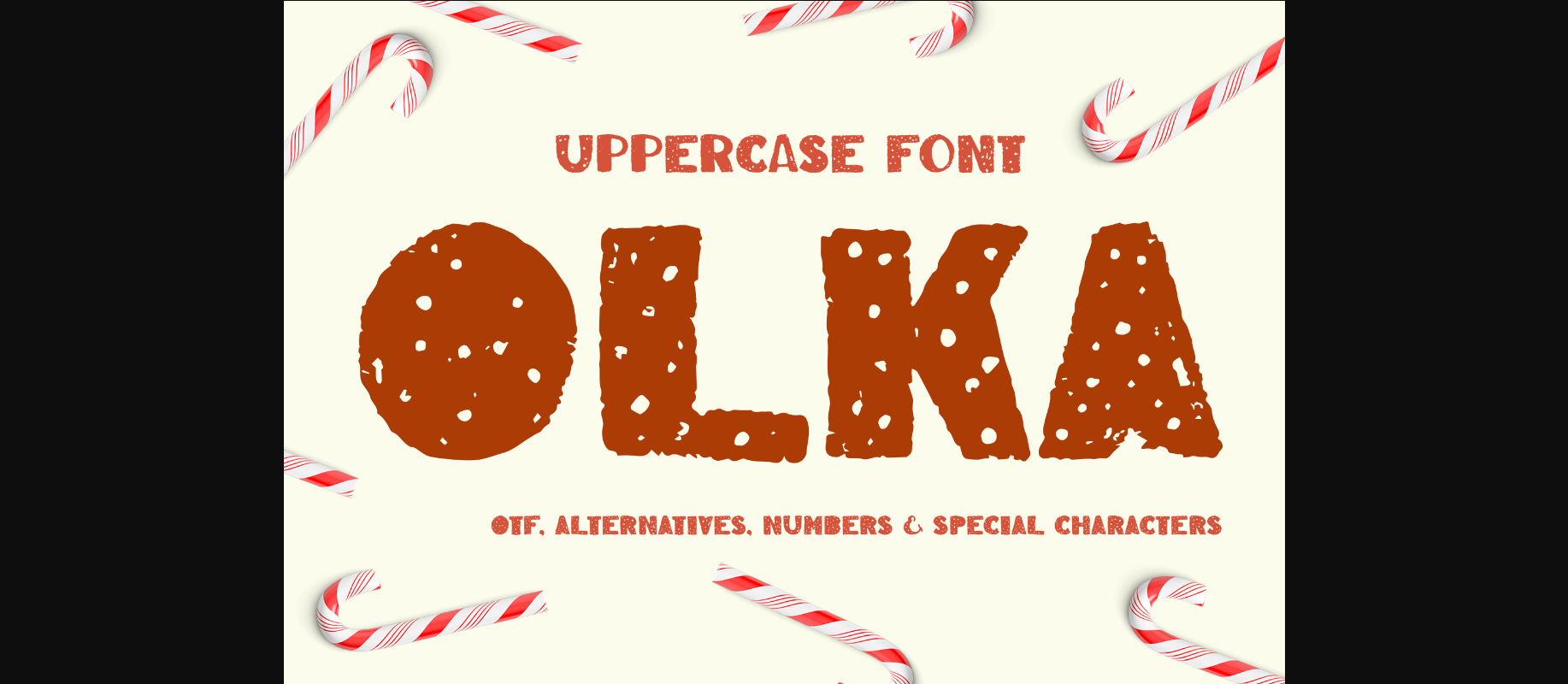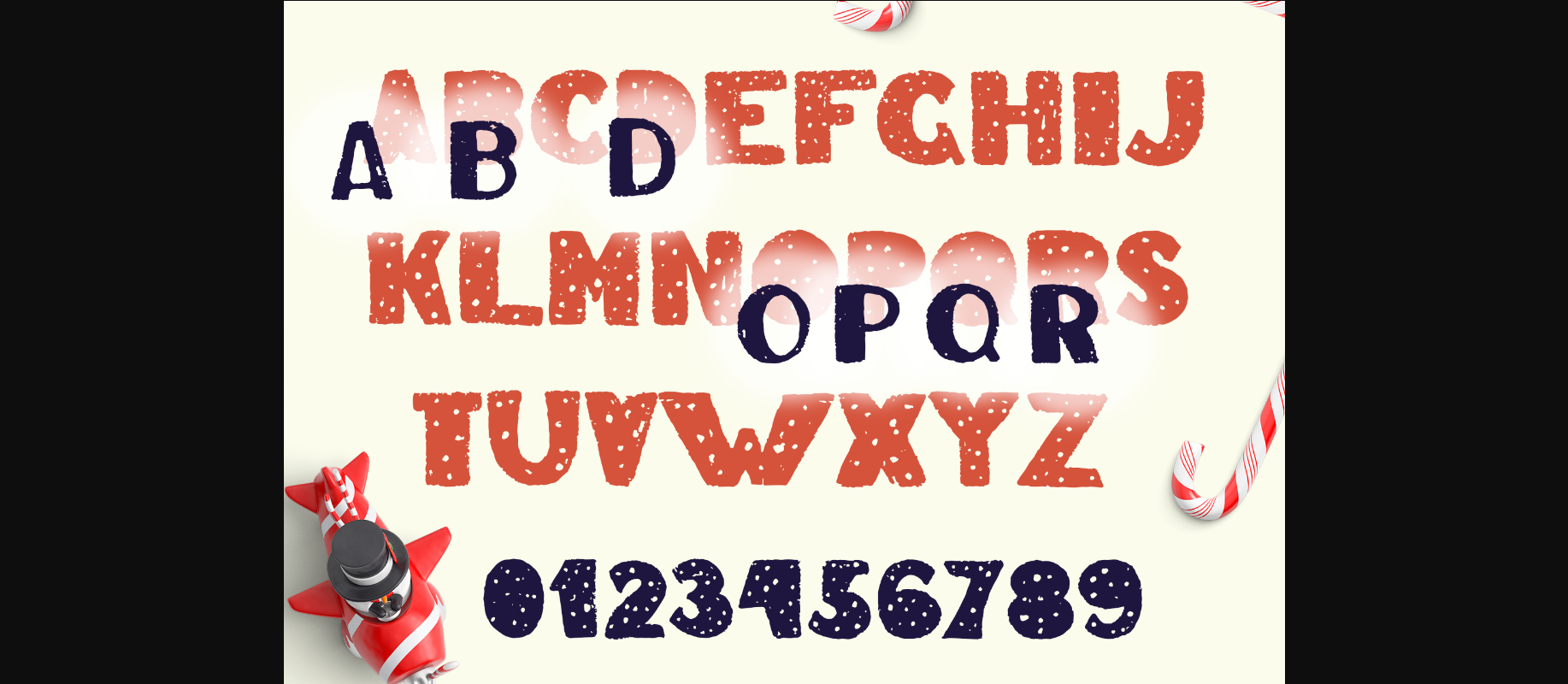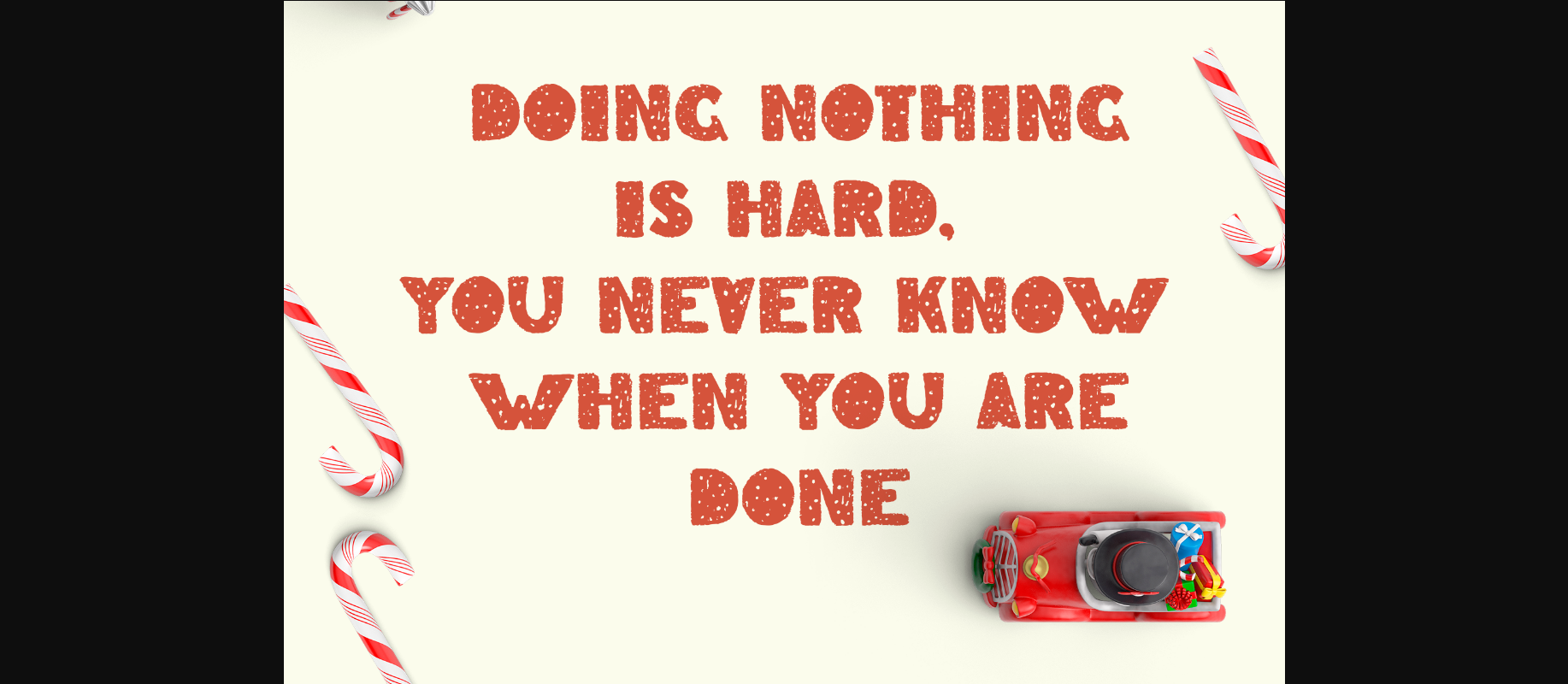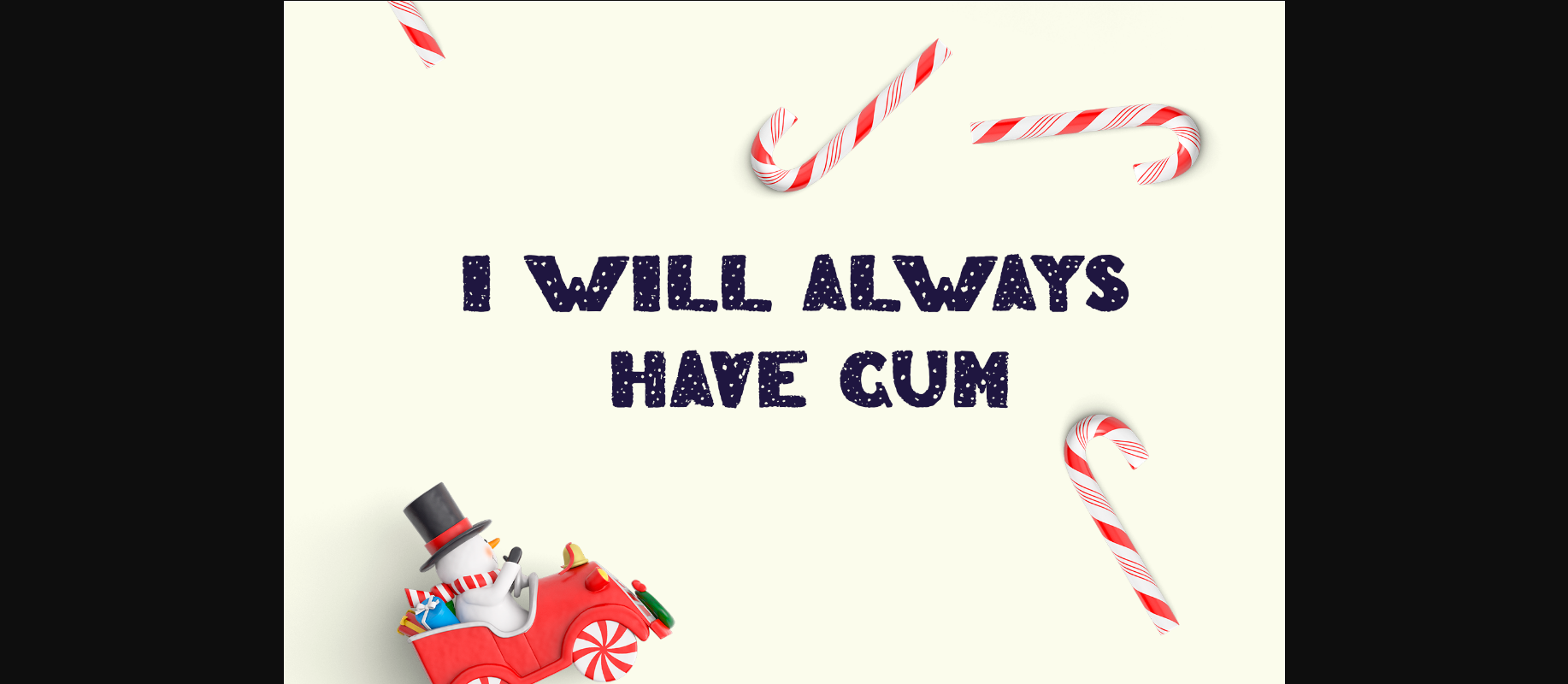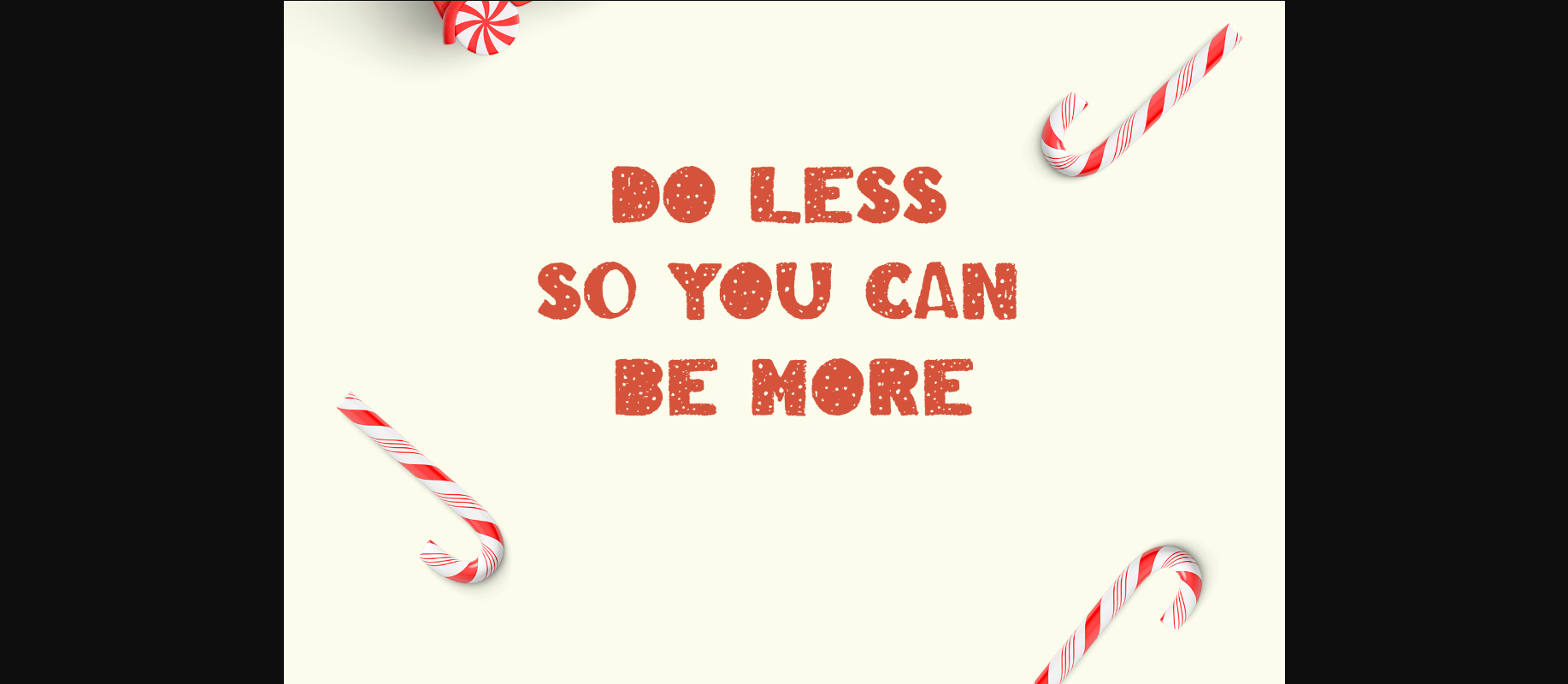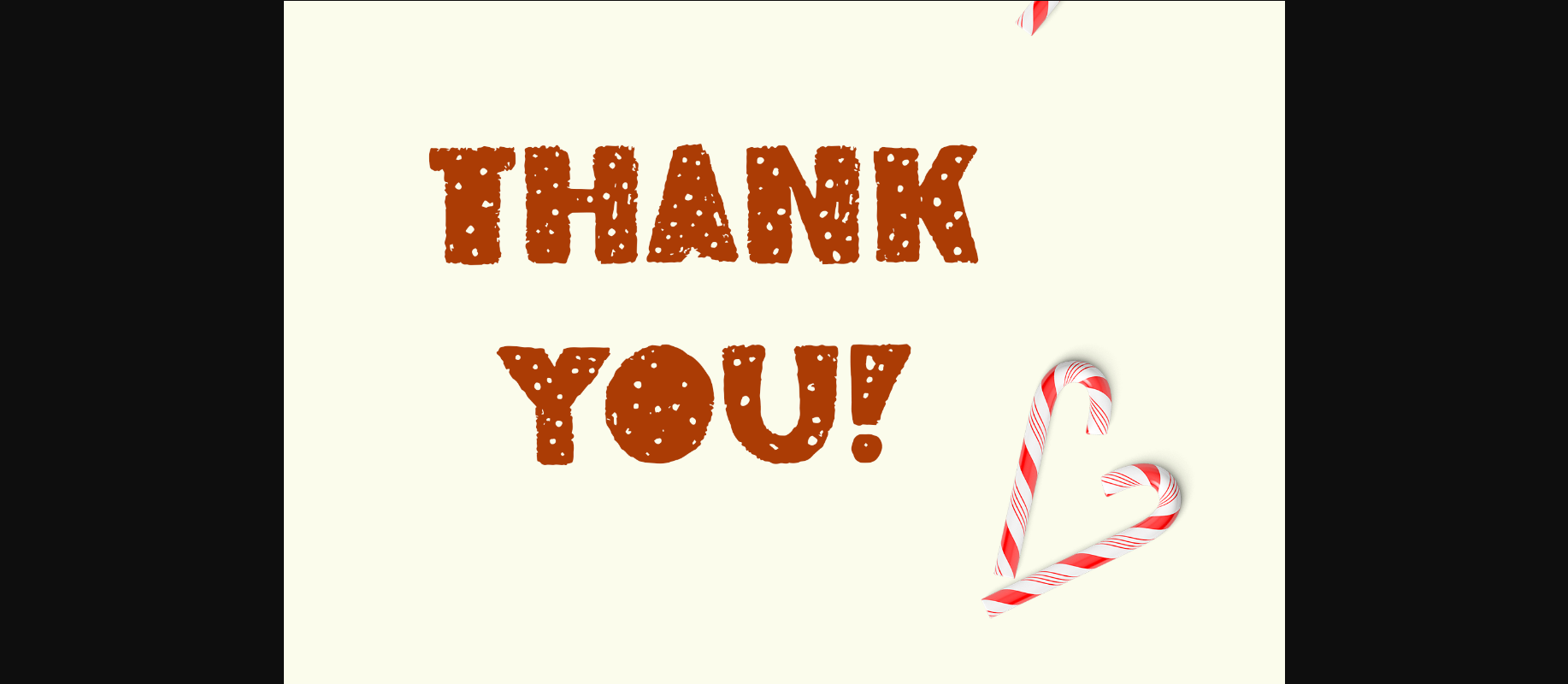
Olka Font
About Olka Font
Olka is a fun, chunky lettered decorative font. Add this font to your creative ideas and notice how it will make them stand out!